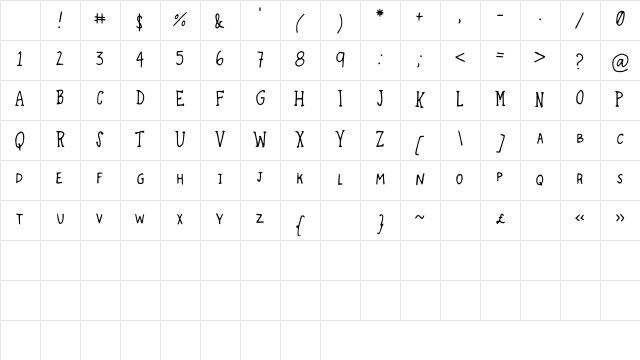
TravelingThrough Medium Free Font
TravelingThrough Medium
Design Context for TravelingThrough
TravelingThrough embraces imperfection - its rough, textured character adds raw authenticity to designs that want to feel lived-in and unconventional.
Pro Tip: Use TravelingThrough at larger sizes where the texture and irregularity of each letterform can be clearly seen - it loses its character at small sizes.